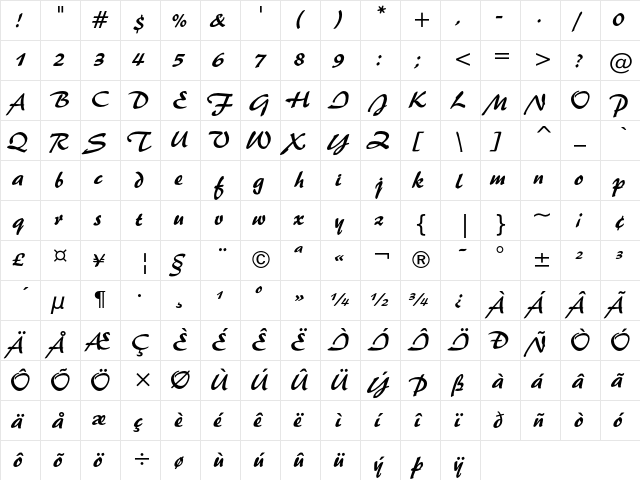
Brush 445 Regular
Design Context for Brush 445 Typeface
Brush 445 flows with the natural rhythm of handwritten lettering, making it ideal for designs that call for warmth and personal expression.
Font Pairing: Combine Brush 445 with a simple geometric sans for maximum contrast — the tension between flowing curves and clean structure is a classic typographic pairing.
Pro Tip: Pair Brush 445 with a clean sans-serif for supporting text. The contrast between fluid script and geometric structure creates an elegant typographic hierarchy.